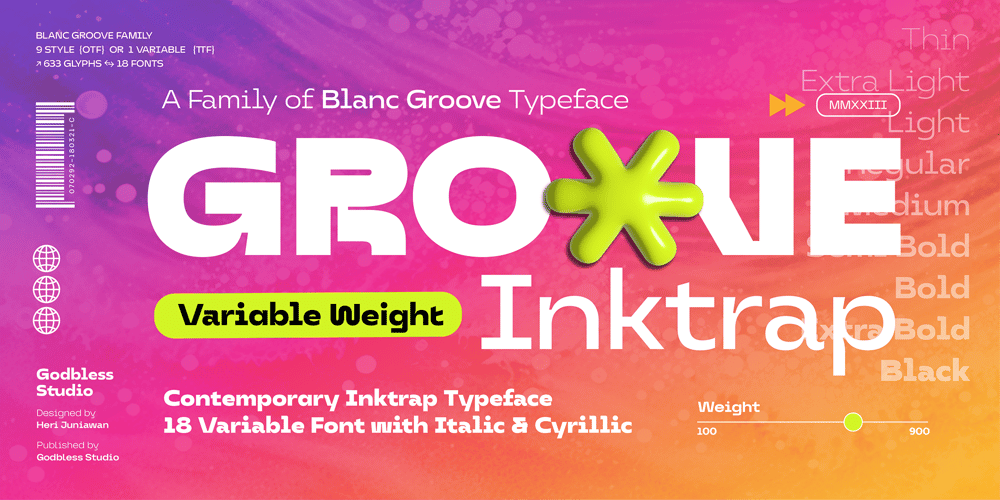
Groove Inktrap Display
Groove Inktrap Display font
Groove Inktrap Display Font Family was designed by Heri Juniawan and published by Godbless Studio. Groove Inktrap Display contains 18 styles and family package options. BLANC GROOVE INKTRAP, a font with a futuristic and experimental concept created with a strong and charismatic character. following the current trend design style.BLANC GROOVE INKTRAP is made experimentally following a futuristic style recipe with alternate characters made with outstanding INKTRAP and display that makes this font more stylish and varied.BLANC GROOVE INKTRAP is a variable font that has 18 Font, 9 weights with 2 Variable from thin to black & Italic. also includes alternates that are more varied with variables.BLANC GROOVE INKTRAP is a versatile font system, designed primarily for display uses with a need of visual impact.What’s Include : Thin & Italic Light & Italic ExtraLight & Italic Regular & Italic Medium & Italic SemiBold & Italic ExtraBold & Italic Black & Italic Feature : Alternate Character Ligature Discretionary Ligature Multilingual Support Numeral & Punctuation Symbol etc Wish you enjoy our font and if you have a question, don’t hesitate to drop message & I’m happy to help.